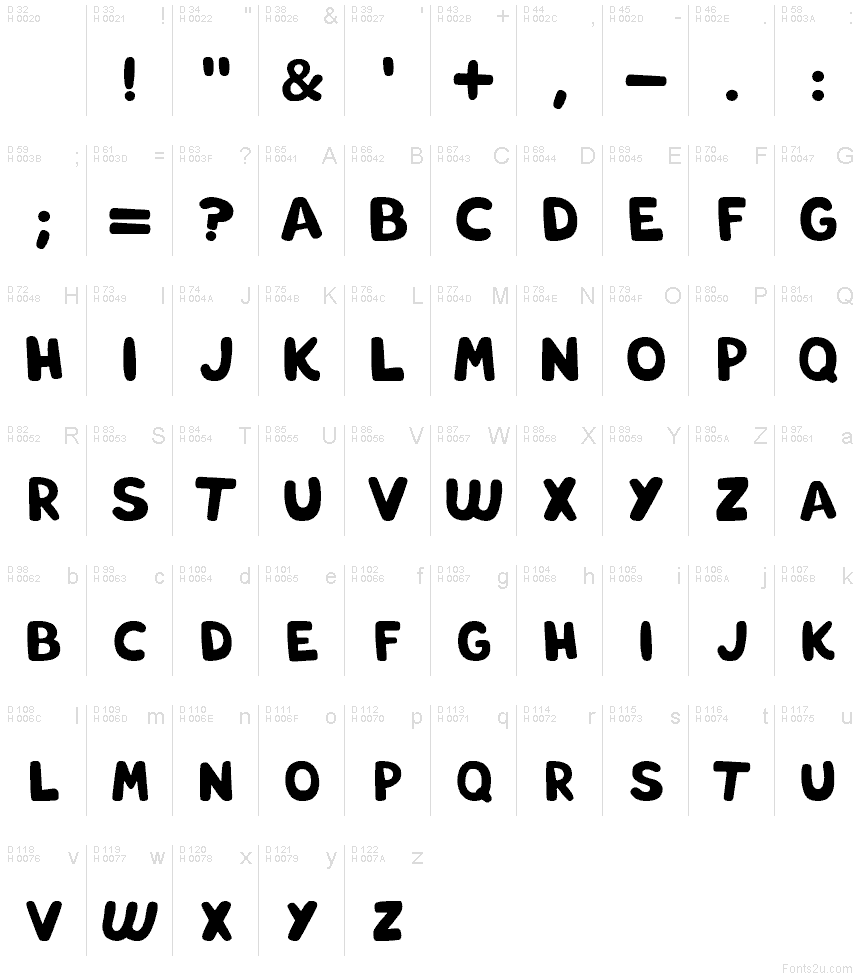
Boy Girl Dog Cat Mouse Font Regular
Boy Girl Dog Cat Mouse font is a cartoon display font featuring irregular forms and eye-catching shapes. The chunky and bold fonts have casual aesthetics, with youthful vibes and playfulness perfect for comfort-packed graphics that require a relaxing approach in both their backgrounds and titles.
Free fonts for use, they suit posters whose contents target readers of all ages including kids and young adults. You can use it for coloring books for children, comic books, storybooks, toy packaging design like candy packages or yogurt packages, etc.